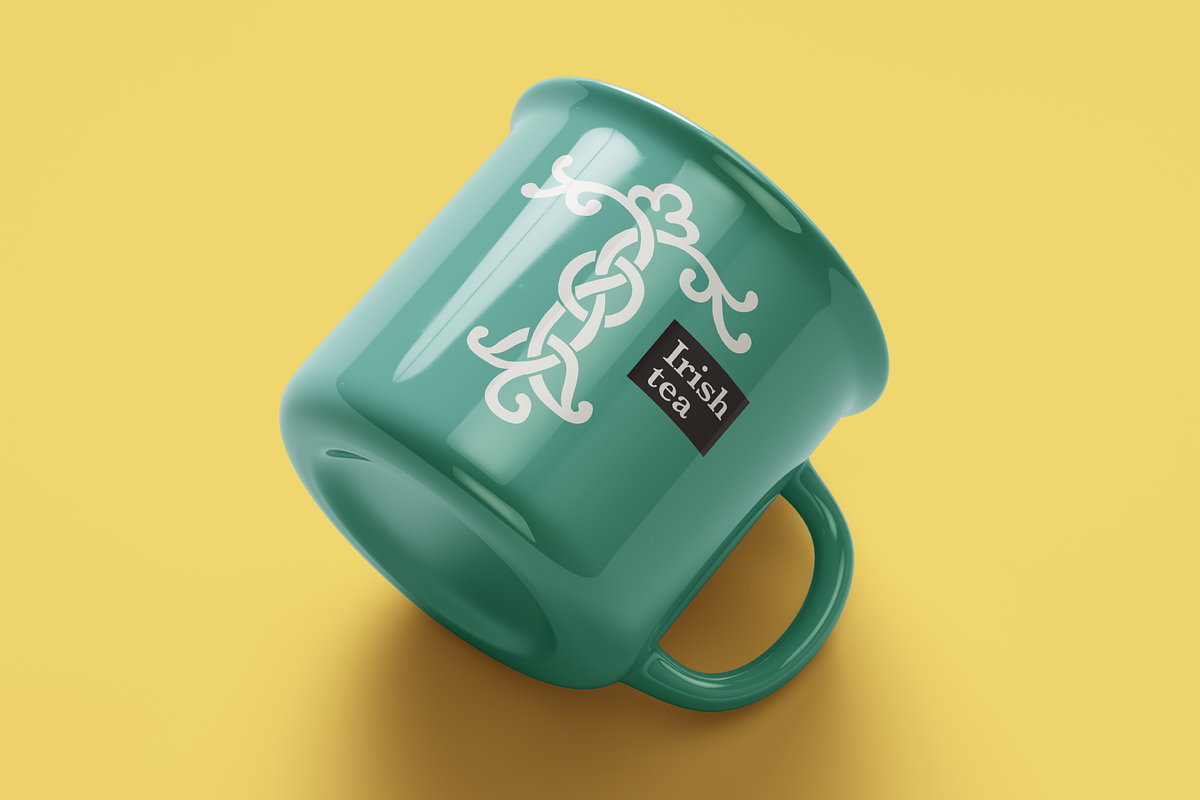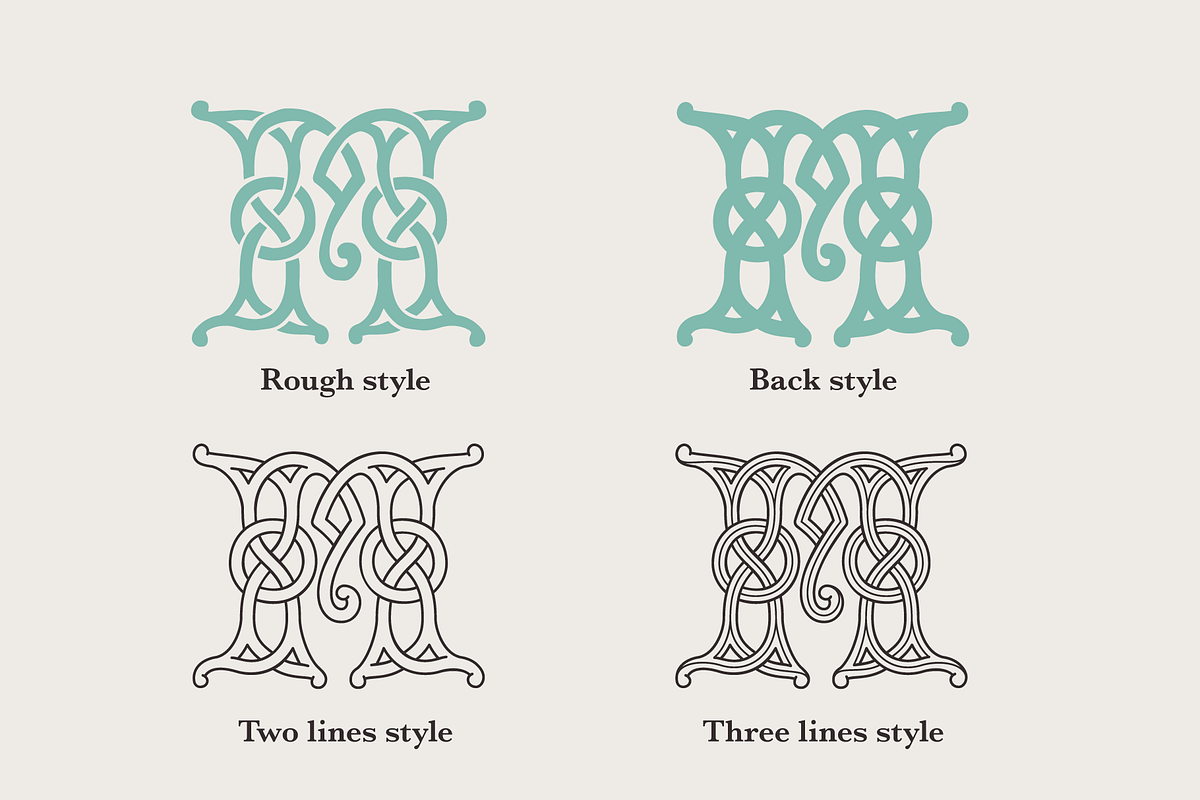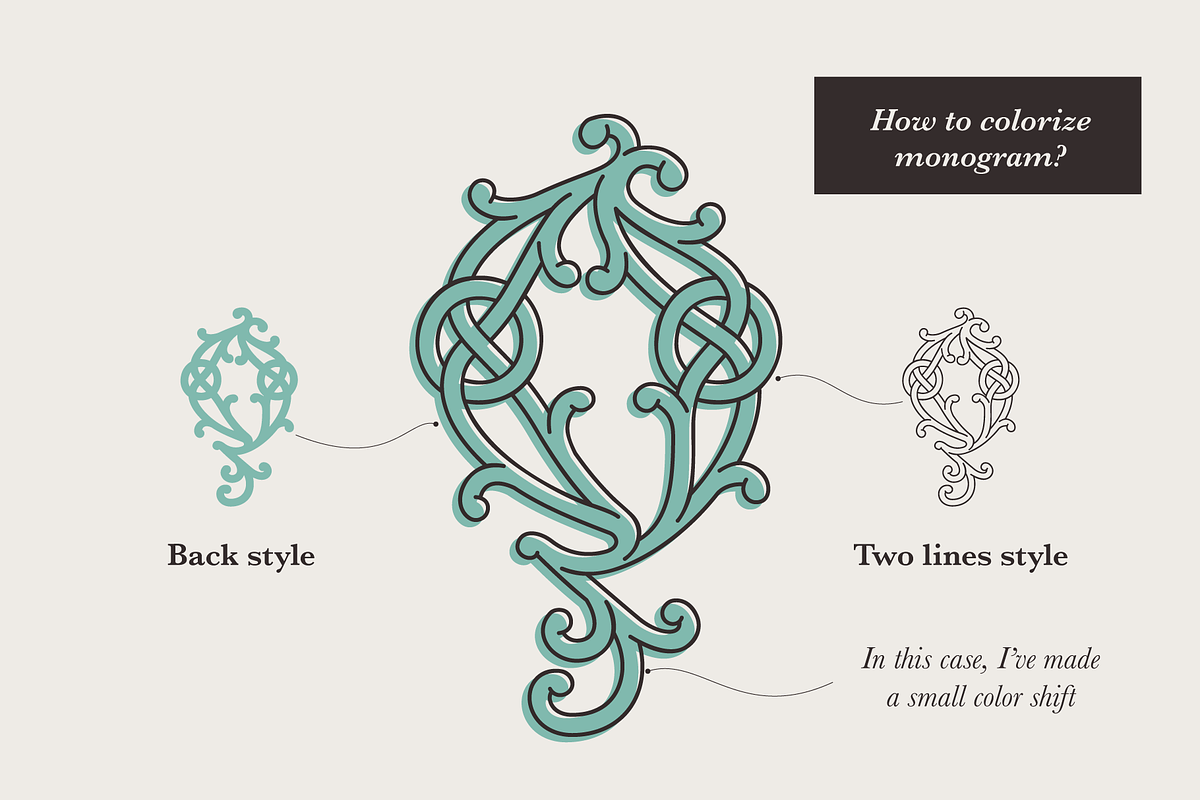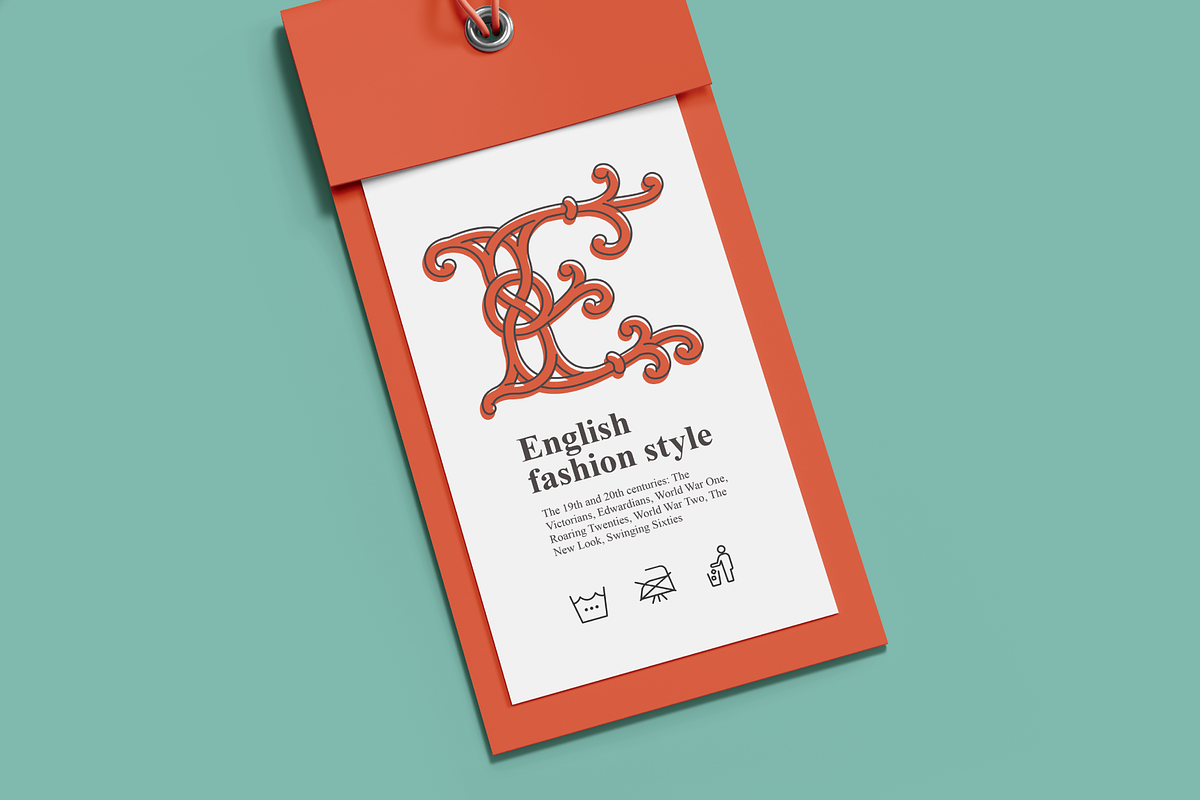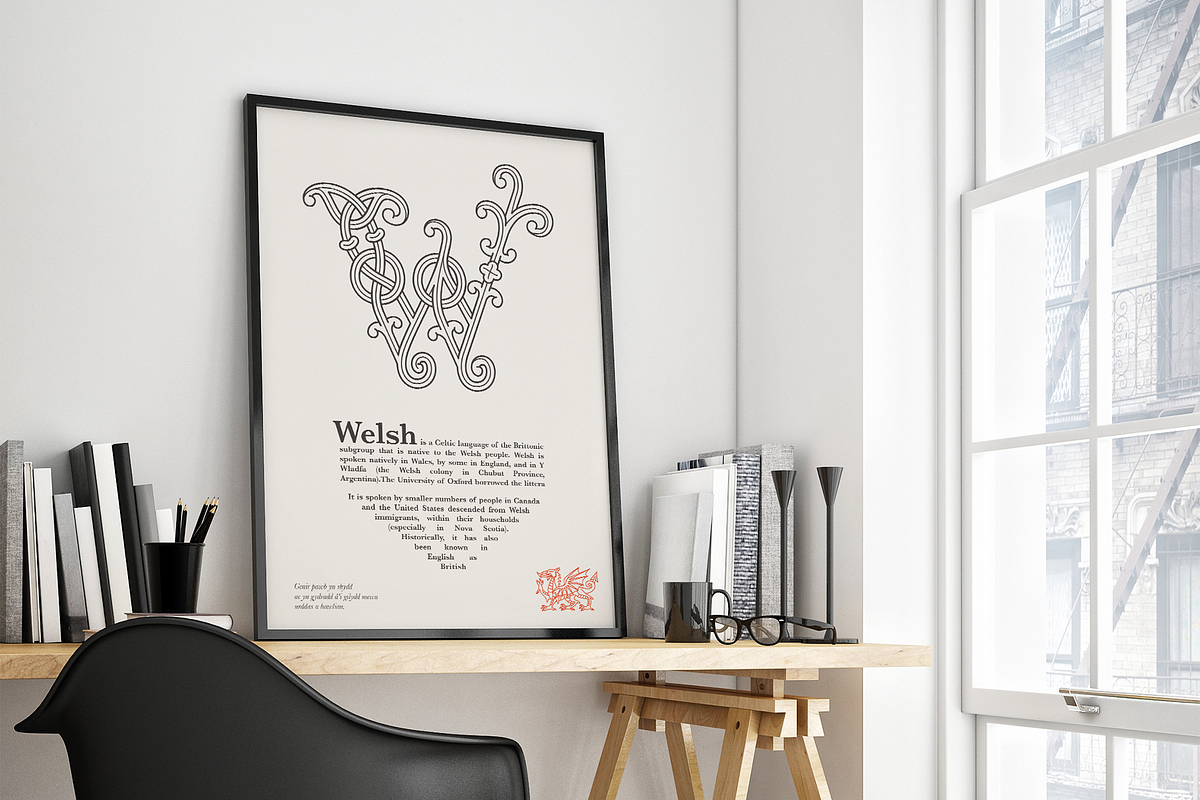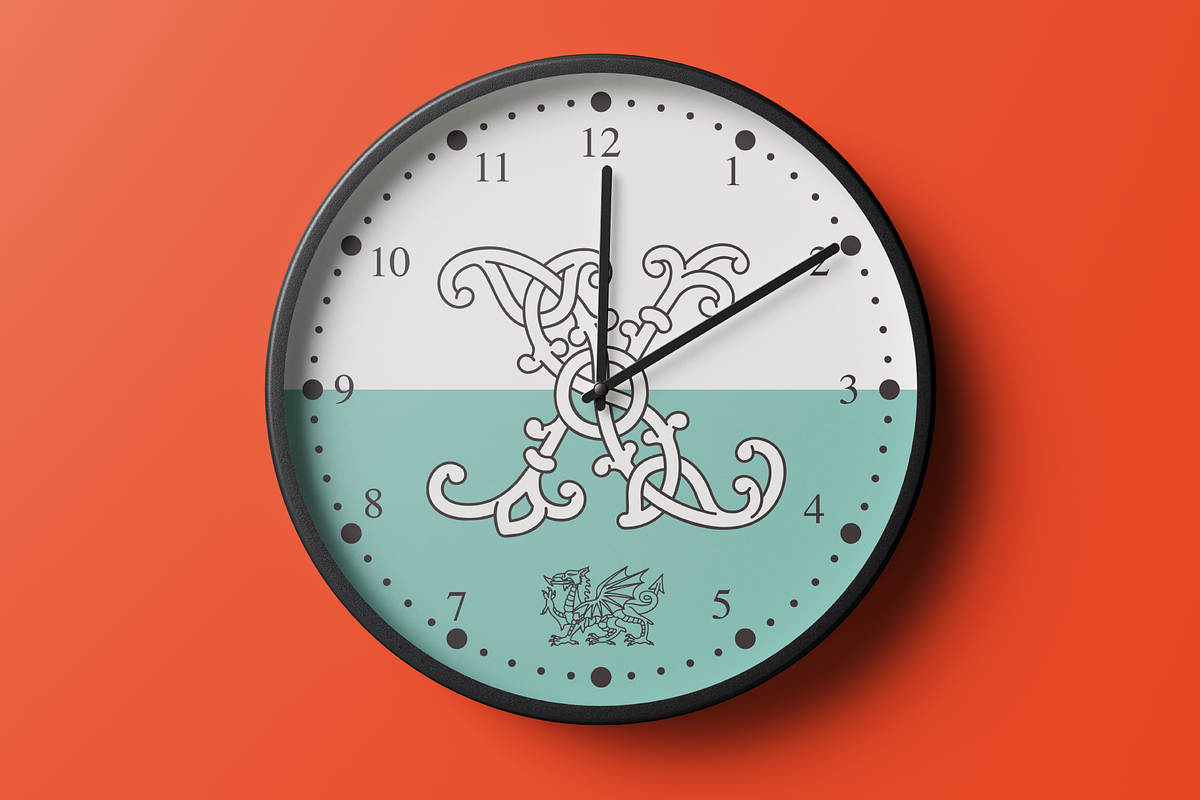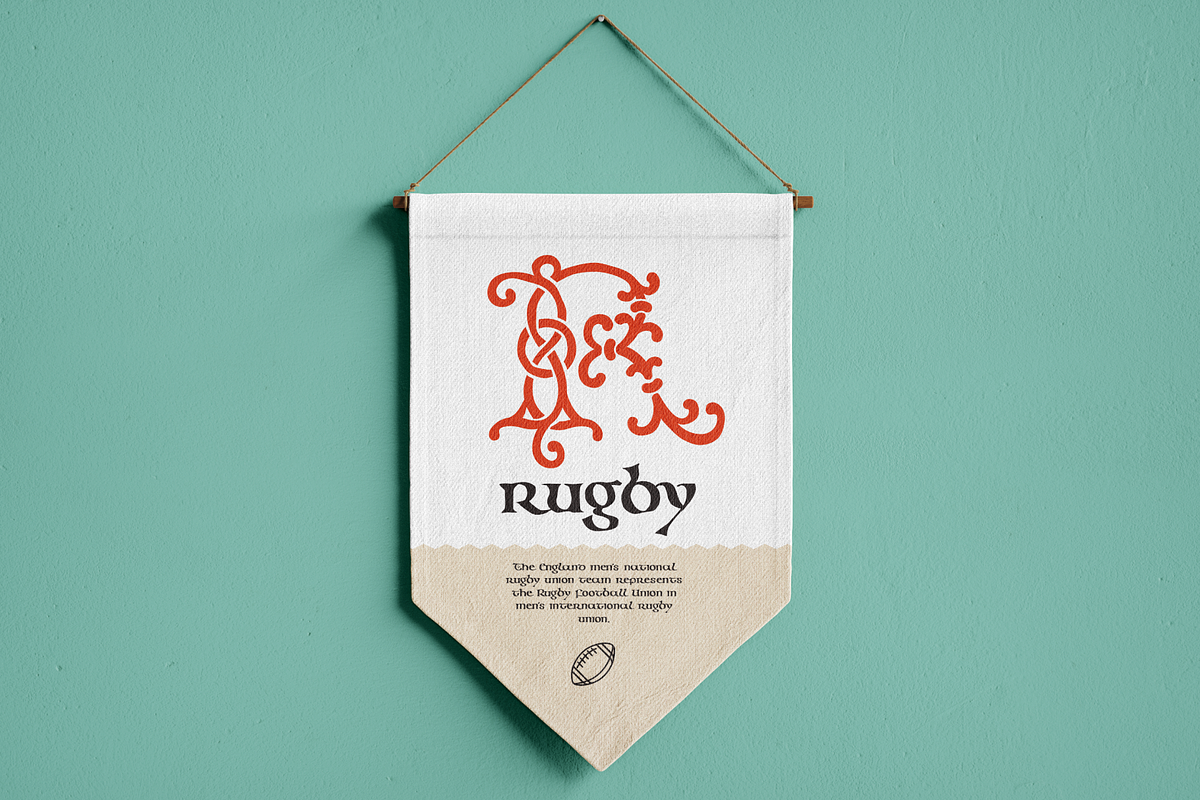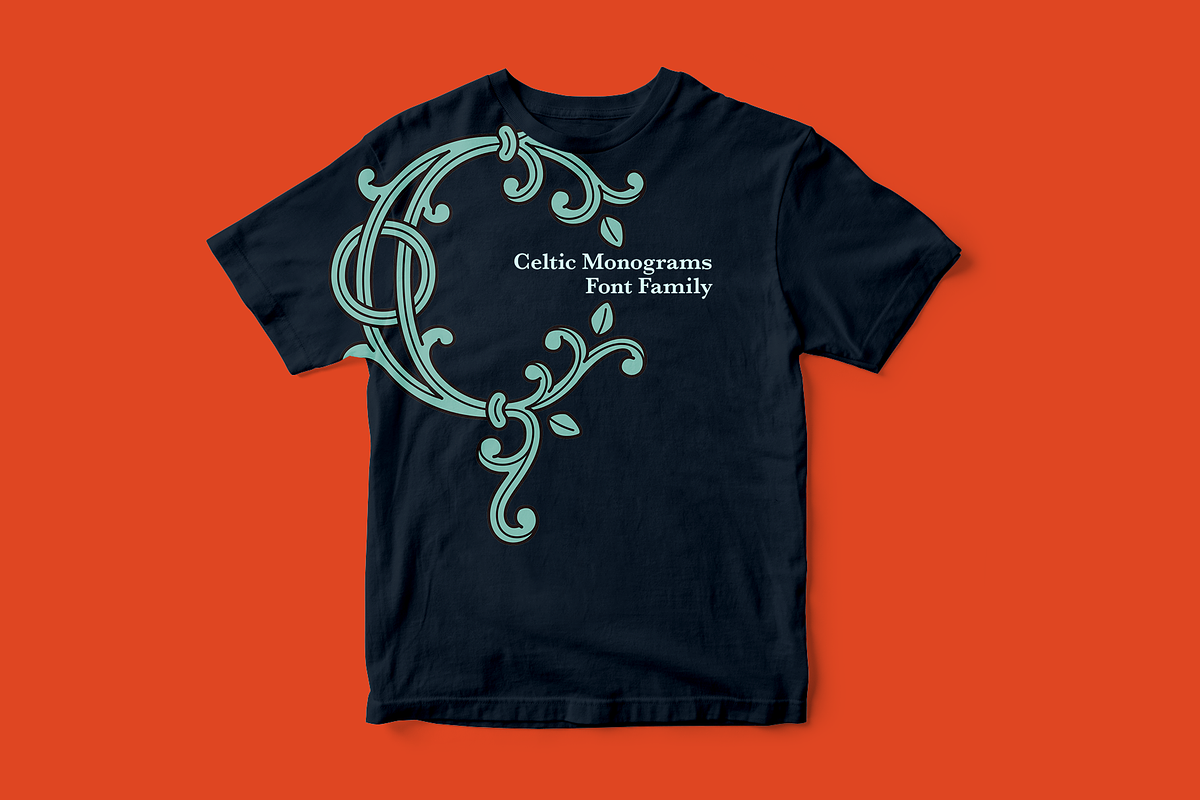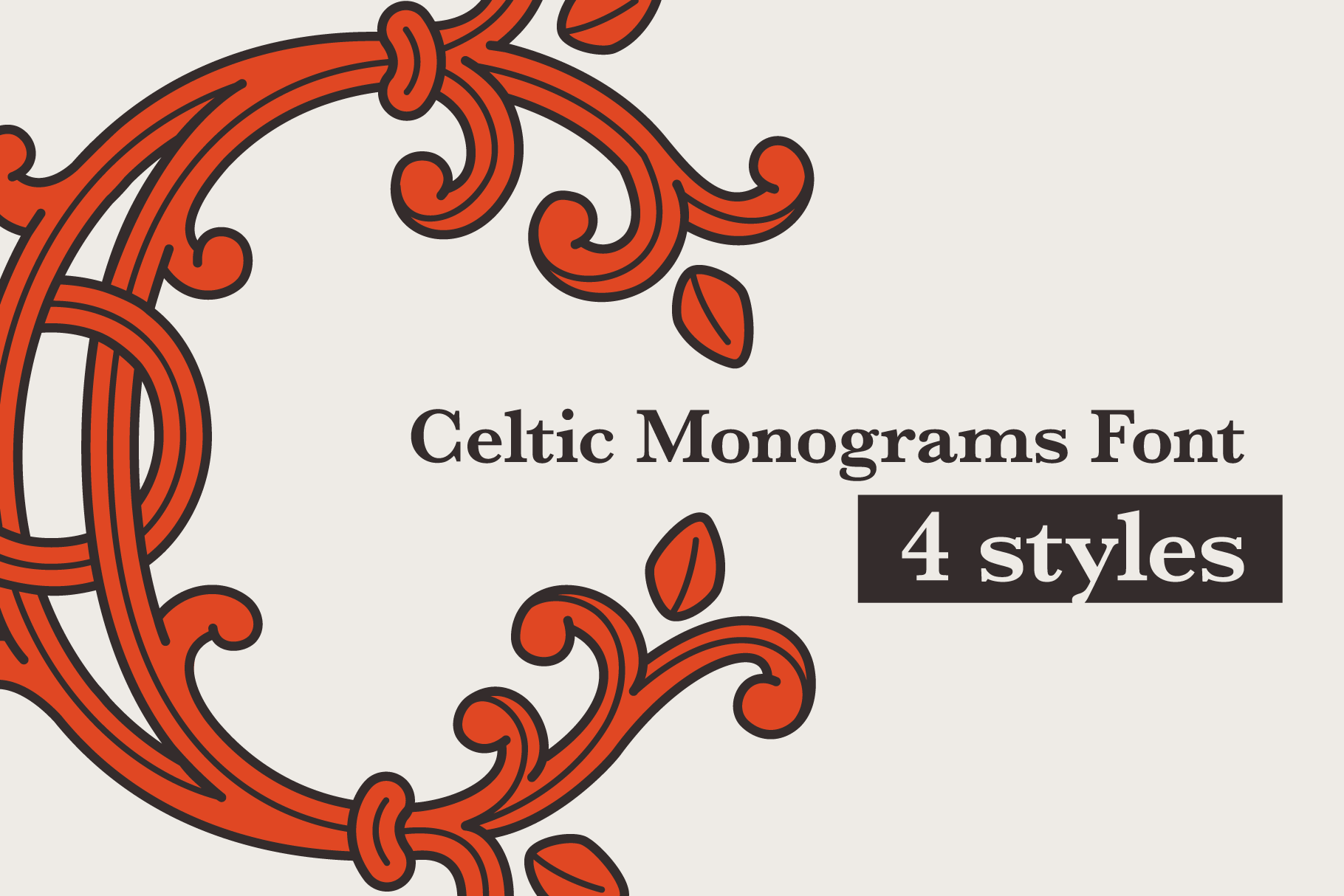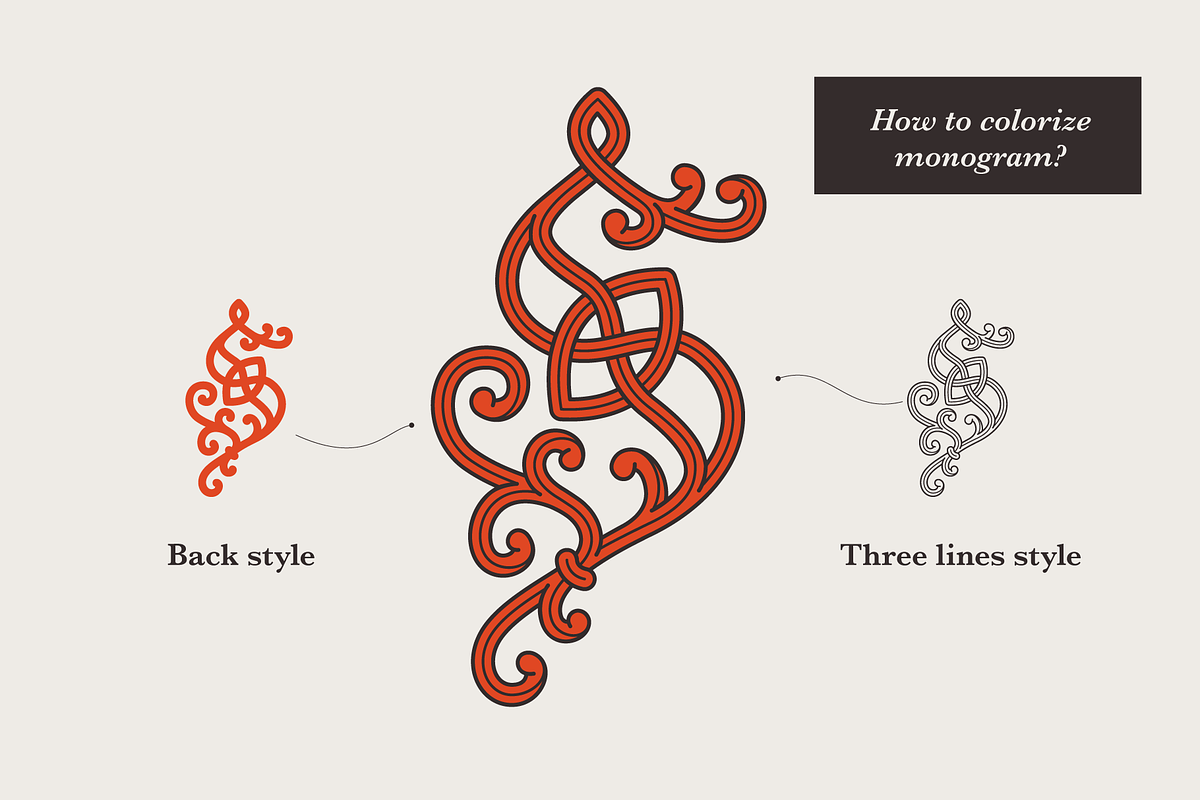
Celtic Monograms Font Family
Here is my next Celtic Monograms font family.
I used a lot of authentic knots and curves to imitate Insular art style. The term derives from insula, the Latin term for “island” in this period Britain and Ireland shared a largely common style different from that of the rest of Europe.
I've drawn sketches set, manually vectorized it and assemble the font family.
In an attempt to replicate the intricate patterns found in Celtic art, I endeavored to create a design that embodied the essence of true Celtic knotwork. The interweaving lines, which were prominent motifs in Celtic art prior to the arrival of Christian influence around 450, served as the foundation for my creation. Over time, these designs seamlessly integrated into early Christian manuscripts and artwork, incorporating depictions of various elements from everyday life, including animals, plants, and even human figures.
In the beginning, the patterns were intricate interwoven cords, called plaits. This particular style is often linked to the Celtic regions, but it was also widely embraced in England and spread throughout Europe through the efforts of Irish and Northumbrian monks.
The utilization of the Celtic knot as a tattoo design gained popularity during the 1970s and 1980s in the United States. Consequently, it has proven to be a highly advantageous font choice for various applications such as posters, banners, and sportswear.
You can also create a vintage color shift effect. Please note, you should use graphic applications such as Adobe Illustrator or Photoshop, but not Microsoft Word. All you need is put Two or Three lines style initial on the top of Back style.
I’m happy to present you the Rough, Two lines, Three lines, and Back styles for your design.